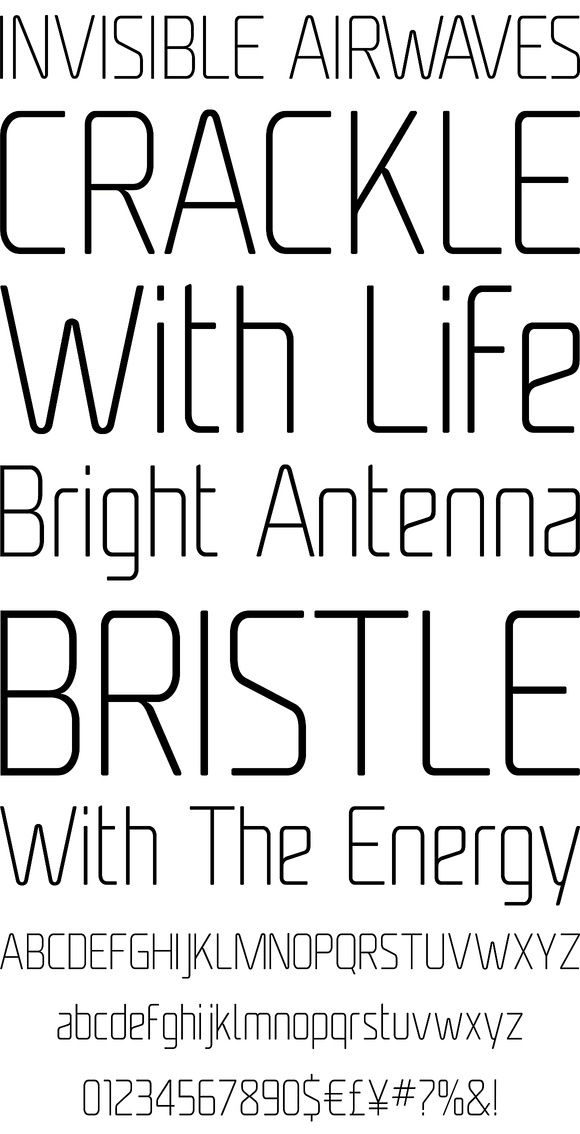
Unicod Sans Condensed
Foundry: Mostardesign
This font has been especially designed for Mostardesign Studio by Olivier Gourvat. Created in 2010, this font family has been designed to serve sectors like financial services, modern industries, business and many more activities who needs a modern aspect in their communication. Its square proportions make the design very readable at a wide range of sizes. Shapes give the face a unique futuristic look and is a very practical choice for modern headlines, branding, text and web fonts work. The family contains also an alternative set with simplified letters designed especially for text and a unique stylistic set for titles and branding.